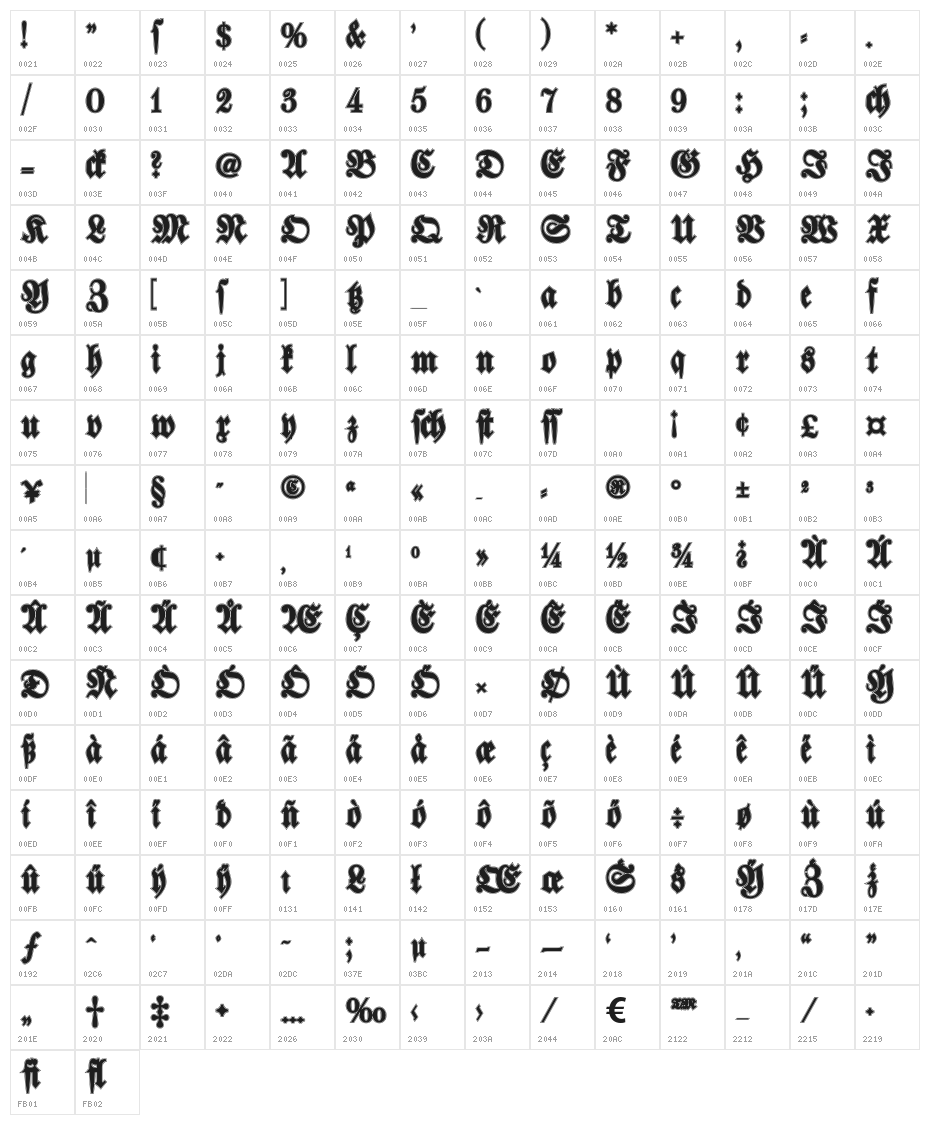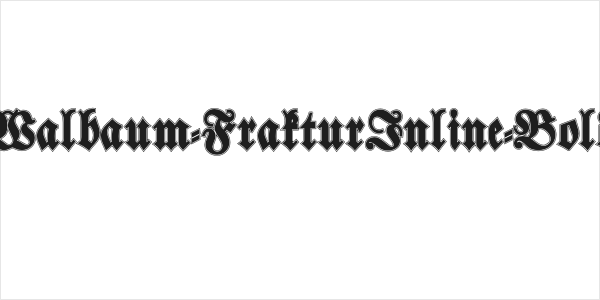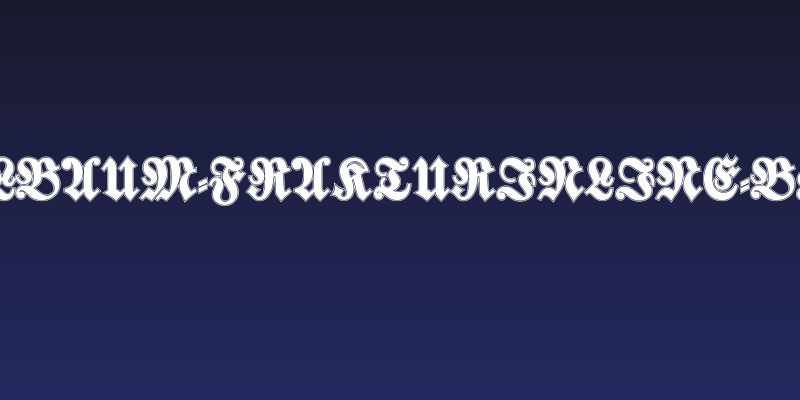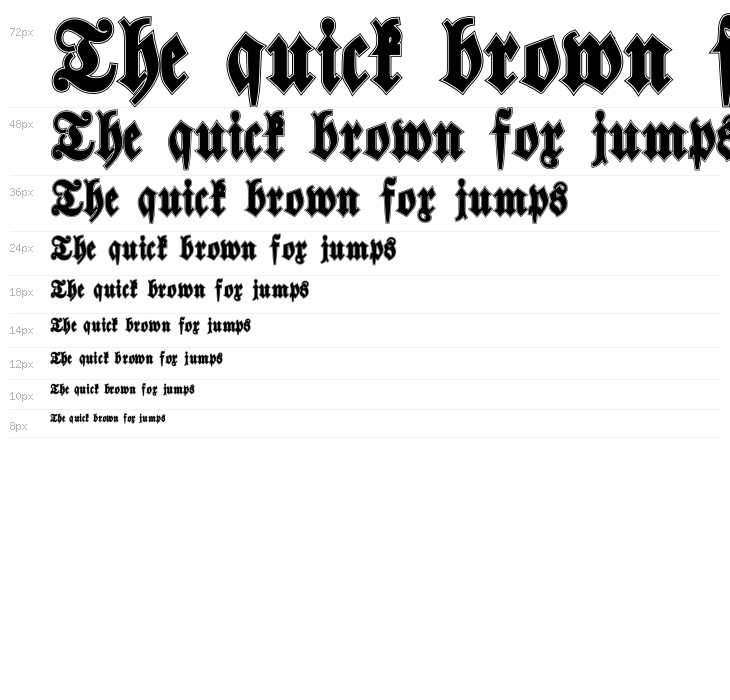
Walbaum-FrakturInline-Bold Font
Walbaum-FrakturInline-Bold Description
This font exhibits a striking and ornate design, characterized by its intricate and bold blackletter style. The letters are embellished with elaborate curves and flourishes, giving it a historic and gothic appearance. The inline detailing within each character adds a layer of depth and complexity, enhancing its decorative nature. The uppercase and lowercase letters maintain a consistent style, with sharp angles and pointed serifs that are typical of traditional blackletter fonts. The numerals and special characters are equally ornate, ensuring a cohesive look across all glyphs. This font is ideal for projects that require a dramatic and historical aesthetic.
| Proposed Projects | Suitable for historical documents, gothic-themed designs, book covers, posters, and branding that requires a dramatic and vintage touch. |